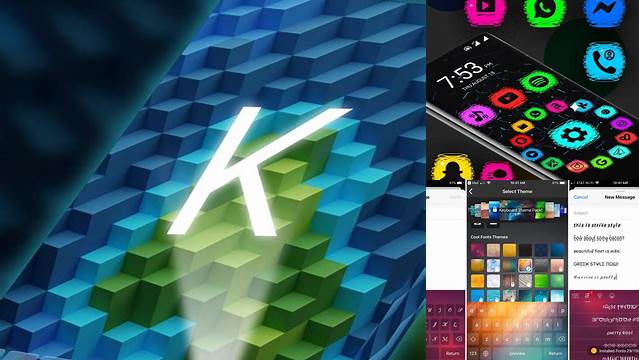
Cool Font Themes: Free Downloads For Your Phone
Hey guys! Want to give your phone a fresh, new look? One of the easiest ways to do that is by changing your font! There are tons of cool font themes available for free download that can completely transform your phone's interface. Whether you're into sleek and modern fonts or something more playful and quirky, there's a font theme out there for everyone. So, let's dive into the world of font themes and explore how you can snag some awesome free downloads for your phone. Get ready to personalize your device like never before!
Font Themes for Android Free Download
Finding font themes for Android that are free and high-quality can sometimes feel like searching for a needle in a haystack, but don't worry, I've got you covered! Android is super customizable, which means you have a ton of options when it comes to changing your fonts. You can find font packs on the Google Play Store, but you'll also find them on other app stores and even directly from developers' websites. Some popular apps that offer free font downloads include HiFont and iFont. These apps usually have a wide variety of styles to choose from, ranging from elegant serif fonts to modern sans-serif options. When downloading, make sure to check the reviews and ratings to ensure you're getting a safe and reliable font. Plus, it's always a good idea to preview the font on your phone before fully committing to it, so you know it looks exactly how you want it to.
Font Themes for iPhone Free Download
Okay, iPhone users, I know what you're thinking: "Can I even change my font on my iPhone?" The answer is a bit more complicated than with Android. Apple doesn't natively allow you to change the system-wide font like Android does, but there are still ways to personalize your font! One common method is to use apps that allow you to create custom keyboards with different fonts. While this won't change the font in every single app, it will change it in apps where you use the keyboard, such as messaging apps and social media. Another option is to jailbreak your iPhone, which gives you much more freedom to customize your device, including changing the system font. However, jailbreaking comes with risks, so make sure you know what you're doing before you take that plunge. Keep in mind that using custom keyboards might also raise privacy concerns, so choose reputable apps and be mindful of the permissions you grant.
Best Font Theme Apps for Phones
Alright, let's talk about some of the best font theme apps out there for your phone. As I mentioned earlier, HiFont and iFont are super popular choices for Android users. HiFont boasts a massive library of fonts and allows you to easily preview and apply fonts to your device. iFont is another great option with a user-friendly interface and a wide selection of fonts. For iPhone users who want to customize their keyboard fonts, apps like Fonts and FancyKey are worth checking out. These apps offer a variety of stylish fonts that you can use in your keyboard, adding a touch of personality to your messages. When choosing a font app, consider factors like the number of fonts available, the ease of use, and the app's reputation. Always read reviews and check the app's permissions to make sure it's safe and reliable. And remember, the best app for you will depend on your specific needs and preferences!
Free Font Theme Websites
Looking for websites where you can find free font themes? There are a bunch of great resources out there! DaFont and Google Fonts are two of the most popular websites for downloading free fonts. DaFont has a huge collection of fonts in various styles, and you can easily preview each font before downloading it. Google Fonts is another excellent resource, offering a wide range of open-source fonts that are free to use for both personal and commercial projects. When downloading fonts from these websites, be sure to check the license agreement to make sure you're allowed to use the font for your intended purpose. Also, download fonts from reputable websites to avoid downloading malware or viruses. Always scan downloaded files with an antivirus program before installing them on your phone.
Paid Font Theme Websites
If you're willing to spend a little money, you can unlock even more font options for your phone. There are several websites that offer paid font themes with premium designs and features. MyFonts and FontShop are two of the most well-known websites for purchasing high-quality fonts. These websites offer a wide variety of fonts from professional designers, and you can often find exclusive fonts that aren't available anywhere else. Creative Market is another great option, offering a marketplace of fonts and other design resources. When purchasing fonts, consider the licensing terms and make sure you're allowed to use the font for your intended purpose. Also, pay attention to the font's quality and readability to ensure it looks good on your phone's screen.
Font Theme Generators
Want to create your own font theme? Believe it or not, there are font generators online that can help you design your very own unique font. These tools allow you to customize various aspects of the font, such as the letter shapes, weight, and spacing. Some popular font generators include FontStruct and BirdFont. FontStruct is a browser-based tool that lets you create fonts using geometric shapes. BirdFont is a free, open-source font editor that's available for Windows, Mac, and Linux. Creating your own font can be a fun and rewarding experience, and it allows you to express your creativity and create a truly unique font that reflects your personality. However, keep in mind that font design can be complex, so be prepared to spend some time learning the basics.
Cool Font Styles for Phones
When it comes to cool font styles for phones, the possibilities are endless! Some popular styles include modern sans-serif fonts, elegant serif fonts, script fonts, and decorative fonts. Modern sans-serif fonts are clean and minimalist, making them a great choice for a sleek and contemporary look. Elegant serif fonts add a touch of sophistication and formality to your phone's interface. Script fonts are playful and whimsical, perfect for adding a personal touch. Decorative fonts are bold and eye-catching, ideal for making a statement. When choosing a font style, consider your personal preferences and the overall aesthetic you're trying to achieve. Also, make sure the font is readable on your phone's screen and doesn't strain your eyes.
The Future of Font Themes
The future of font themes is looking bright, with new technologies and trends constantly emerging. We can expect to see more advanced font customization options, such as the ability to adjust the font's weight, width, and slant. We can also expect to see more AI-powered font tools that can automatically generate fonts based on user preferences. Virtual reality and augmented reality could also play a role in the future of font themes, allowing users to experience fonts in new and immersive ways. As technology continues to evolve, font themes will become even more personalized and integrated into our digital lives.